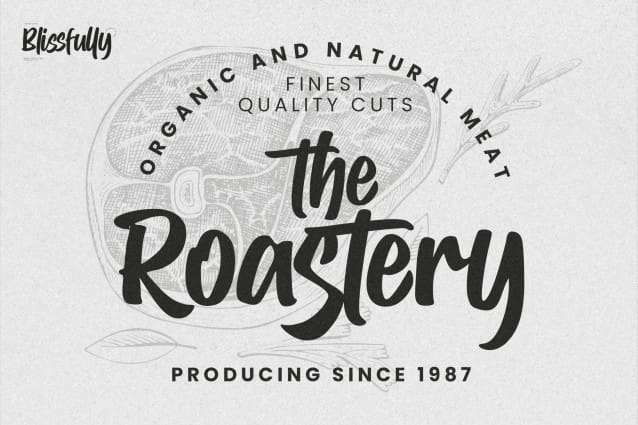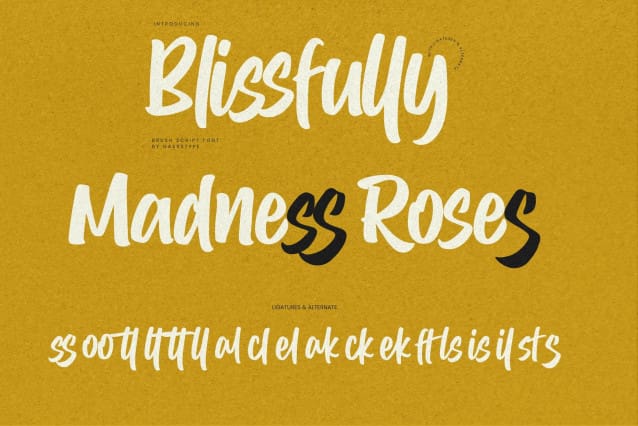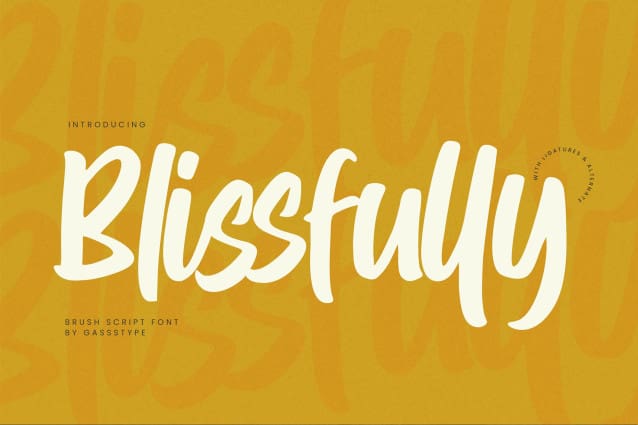
Blissfully Script Font
Blissfully Script Font – This is a Brush Script Font, with simple drawing and simple style, this font is perfect for making a strong statement in your designs.
Add the bold and authentic character of this Font to your next project and capture the essence of the minimalist aesthetic.